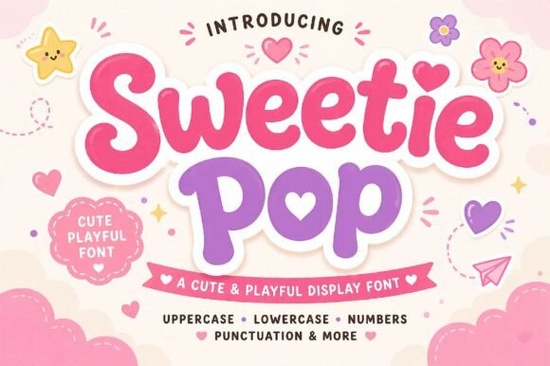
Sweetie Pop Font is a chunky, rounded display typeface with heart-shaped details baked right into letters like "o" and "p." If you've been looking for a playful, candy-inspired font that feels both bold and adorable, this one was designed exactly for that purpose. It's especially well-suited for sweet shop branding, kids' party invitations, toy packaging, and kawaii-style social media graphics. The thick letterforms and rhythmic curves give it a strong visual presence without losing any of its warmth.
I've been exploring display fonts for different client projects and personal shop listings, and Sweetie Pop caught my attention for a specific reason: it fills a gap between overly childish fonts and generic bold typefaces. It has personality without being unreadable, which matters more than people realize in branding and product design.
What makes Sweetie Pop Font different from other playful typefaces?
A lot of display fonts lean either too far into cartoon territory or stay so safe they become forgettable. Sweetie Pop sits in a sweet spot (pun intended). Here's what sets it apart:
- Ultra-thick, rounded letterforms that hold up well at large sizes and stay legible even on busy backgrounds.
- Heart-shaped counters in specific characters, adding a subtle romantic or kawaii touch without going overboard.
- Heavy structural weight that makes it work for headers, logos, and print-on-demand designs where you need visual punch.
- Rhythmic curves that create a sense of movement, keeping the text from feeling stiff or static.
Compared to something like the comic pop display font, which leans more into retro comic energy, Sweetie Pop is softer and more candy-forward. And unlike something like a crayons-inspired font, which targets an even younger aesthetic, Sweetie Pop feels polished enough for small business branding.
What projects work best with a candy-themed display font?
This is where I've seen the most creative uses from other designers and shop owners. Sweetie Pop fits naturally into:
- Confectionery and bakery branding logos, menu headers, packaging for cookies, cupcakes, and candy shops.
- Children's party stationery invitations, thank-you cards, banner text, and printable decorations.
- Toy and kids' product packaging bold enough to grab attention on a shelf or a product listing thumbnail.
- Social media headers and post graphics especially for kawaii, pastel, or "sweet" themed accounts on Instagram and Pinterest.
- Print-on-demand designs t-shirts, tote bags, stickers, and mugs that target a cute or playful audience.
- Scrapbooking and journaling headlines, title cards, and decorative text elements.
If you work with cute sticker designs and fonts, pairing Sweetie Pop with coordinating graphics can create a really cohesive look for your shop listings.
How does Sweetie Pop compare to other Creative Fabrica display fonts?
Creative Fabrica has a solid library of display typefaces, and choosing the right one depends on the mood you're going for. Here's a quick comparison based on my experience:
- Sweetie Pop candy-inspired, kawaii-friendly, heart details, best for sweet and playful themes.
- Rabbit Hole whimsical and storybook-like, better suited for fantasy or Alice-in-Wonderland projects.
- Super Sport Bundle bold and athletic, ideal for sports branding and fitness-related designs.
Each font serves a different design need. Sweetie Pop specifically targets that "bubbly and blissful" aesthetic that's trending in the handmade and small business space right now. If your audience responds to pastel palettes, rounded shapes, and sugary-sweet messaging, this is the typeface to reach for.
Is Sweetie Pop Font good for commercial use?
Quick checklist before you start using Sweetie Pop
- Test at different sizes display fonts look different at 24pt vs. 72pt. Make sure it reads well where you need it.
- Pair it wisely use a simple sans-serif for body text. Let Sweetie Pop do the heavy lifting as a headline or logo font.
- Use heart-shaped counters intentionally they're a design feature, not a flaw. Lean into them for the right projects.
- Consider your color palette pastels, bright pinks, and warm tones complement this font's personality best.
Tip: Start with one project a social media header or a single product listing and see how your audience responds before rolling it out across your entire brand. That way, you get real feedback before committing to a full visual identity built around the font.